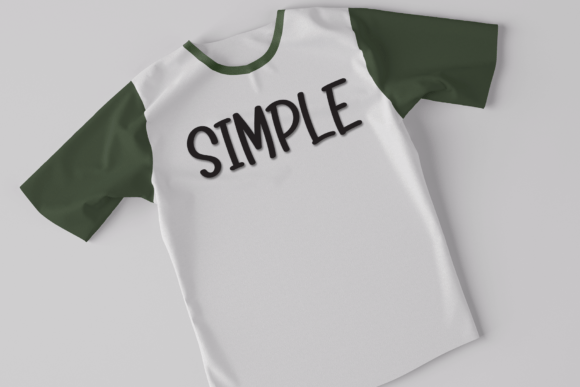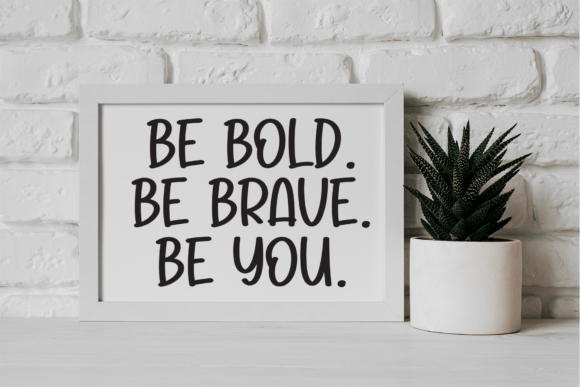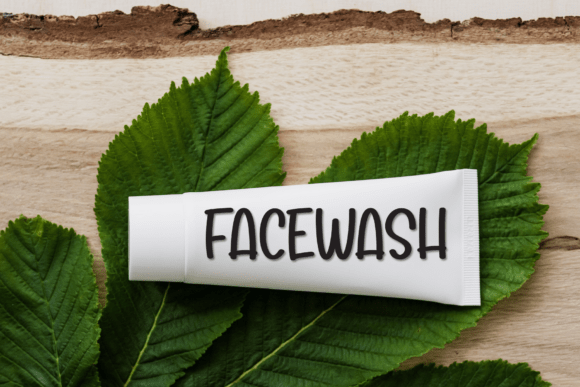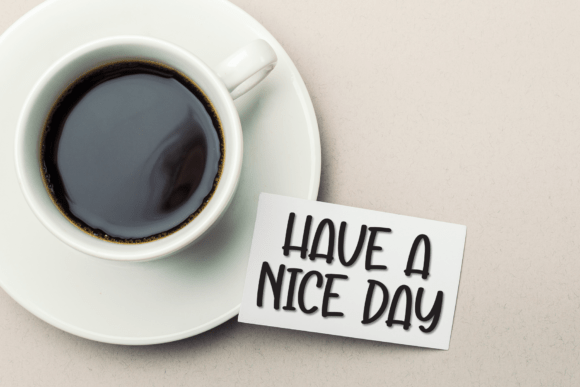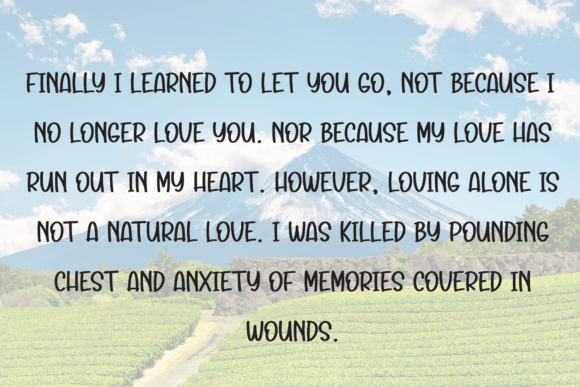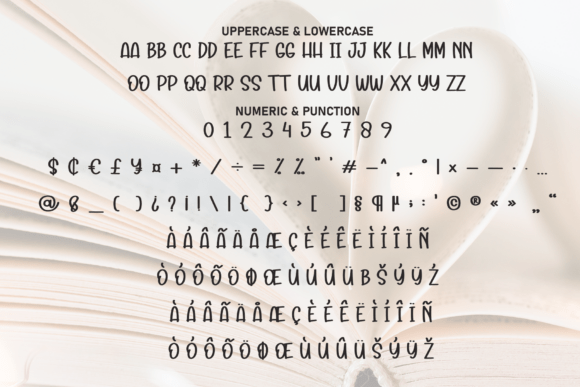
The Font that Stole My Heart: A Deep Dive into Booklove Font
I’ll never forget the moment I stumbled upon Booklove Font while working on a branding project for a cozy bookstore. I had spent hours scrolling through font libraries, but nothing seemed quite right. The client’s request was simple: a font that felt warm, inviting, and true to their brand’s personality. As soon as I saw Booklove, I knew I had found the one. ✨
An Honest Review: What I Love (and What to Watch Out For)
Booklove Font has quickly become a staple in my design toolkit, but like any font, it’s not without its quirks. Here’s the lowdown:
- ✅ Clean structure: Booklove’s letterforms are meticulously crafted, making it perfect for headlines and branding projects.
- ✅ Approachable style: This font feels like a warm hug – it’s inviting and makes your message feel genuine.
- ✅ Readability: Even at smaller sizes, Booklove remains clear and easy to read.
- ✅ Charm: Let’s face it – Booklove has a certain je ne sais quoi that makes your designs feel more personal.
Now, onto the quirks: 🤔
- ⚠️ Limited multilingual support: While Booklove covers the basics, it might not be the best choice for projects requiring extensive multilingual support.
- ⚠️ Not ideal for body text: Booklove shines in headlines and titles, but it might not be the best choice for longer blocks of text.
- Experiment with OpenType features like ligatures and stylistic alternates to add some flair. 🎨
The Story Behind Booklove: A Designer’s Inspiration
Booklove Font was crafted with the goal of creating a typeface that feels both approachable and sophisticated. The designer aimed to create a font that would bring warmth and clarity to any project, making it perfect for branding, packaging, and more. 💡
Q: What makes Booklove Font unique?
A: Booklove’s unique blend of clean structure and approachable style sets it apart from other display fonts.
Q: Does Booklove support OpenType features?
A: Yes, Booklove Font includes OpenType features like ligatures and stylistic alternates.
Q: Is Booklove suitable for body text?
A: While Booklove shines in headlines and titles, it might not be the best choice for longer blocks of text.